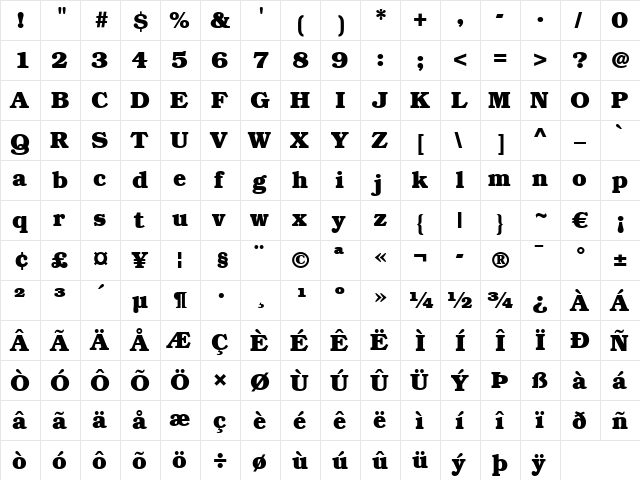
Bookman LT Medium Bold
Design Context for Bookman LT Medium Typeface
Bookman LT Medium offers clean, dependable letterforms without strong stylistic allegiance, making it a practical choice for designers who need flexibility. Its bold stroke weight gives it real presence on the page.
Pro Tip: Use Bookman LT Medium in both headline and body roles to test its range before committing to a single application.